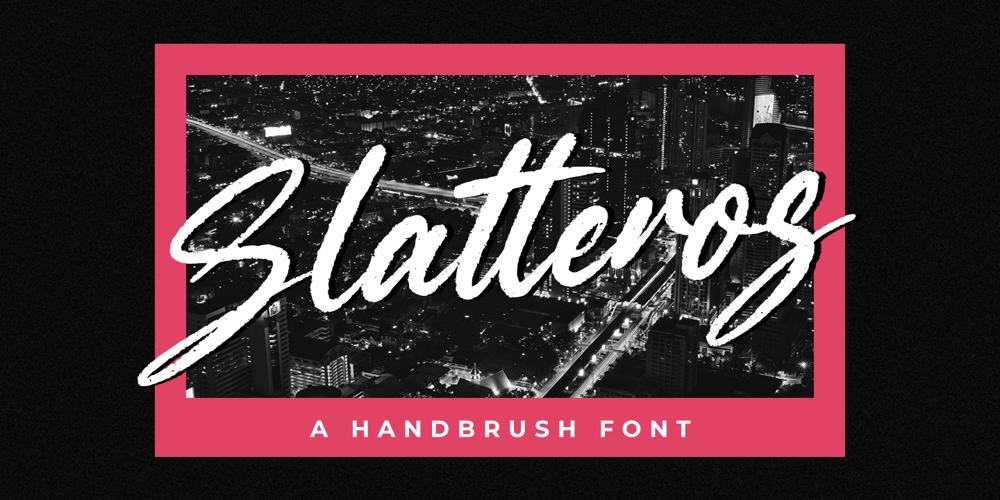
Slatteros Font Family was designed by Hayinah and published by Rockboys Studio. Slatteros contains 1 styles and family package options. Slatteros is a new modern brush font, incredibly adaptable to all sorts of designs. It is suitable for any branding, product packaging, invitation, quote, t-shirt, label, poster, logo that you wish to create.